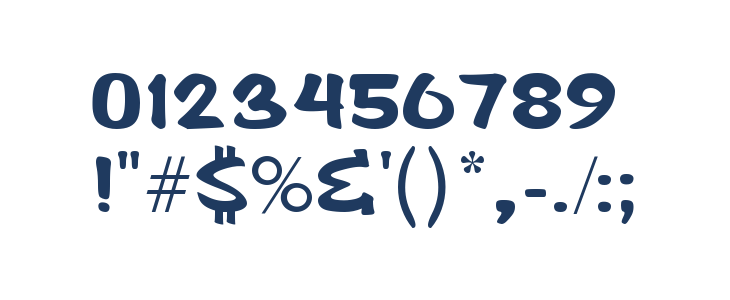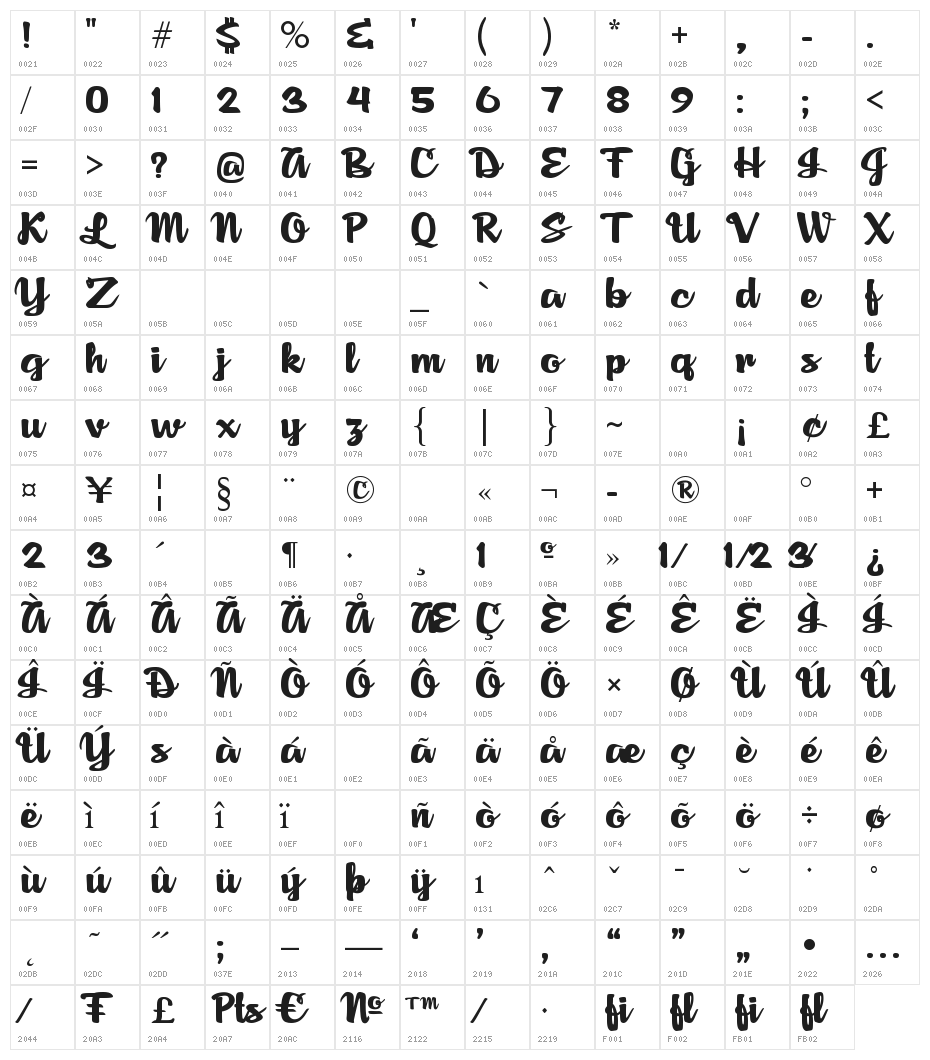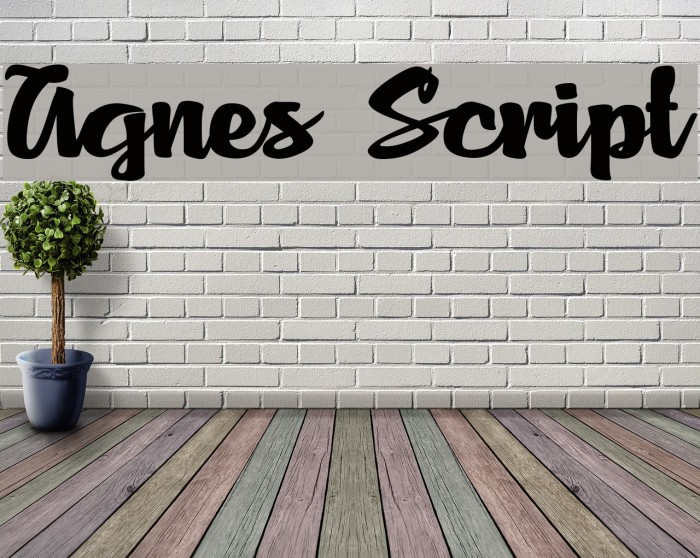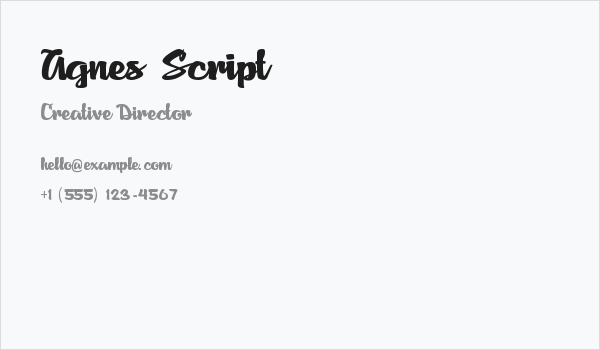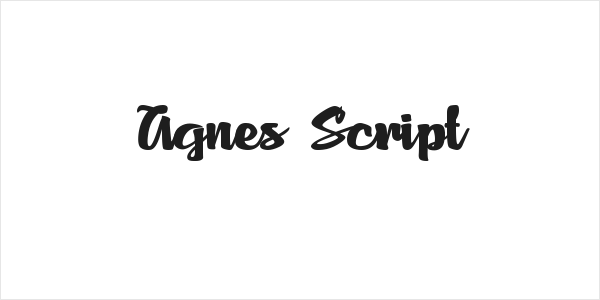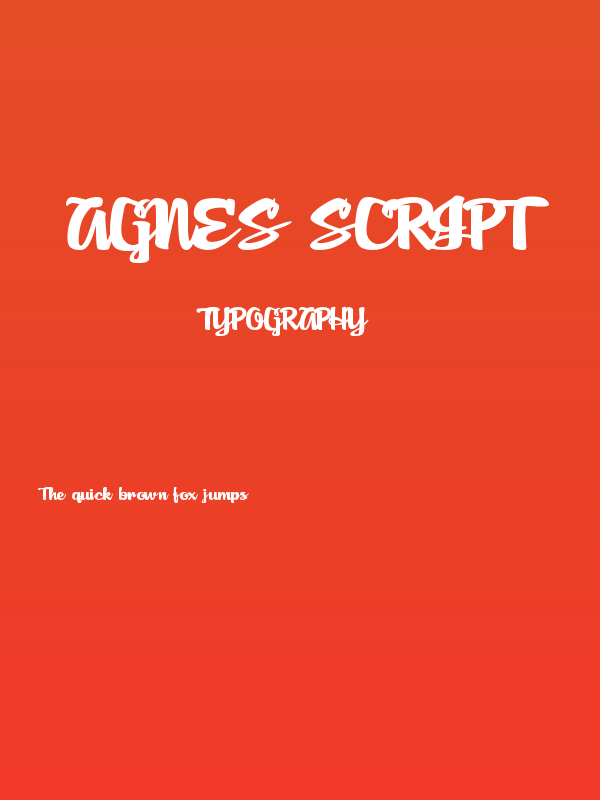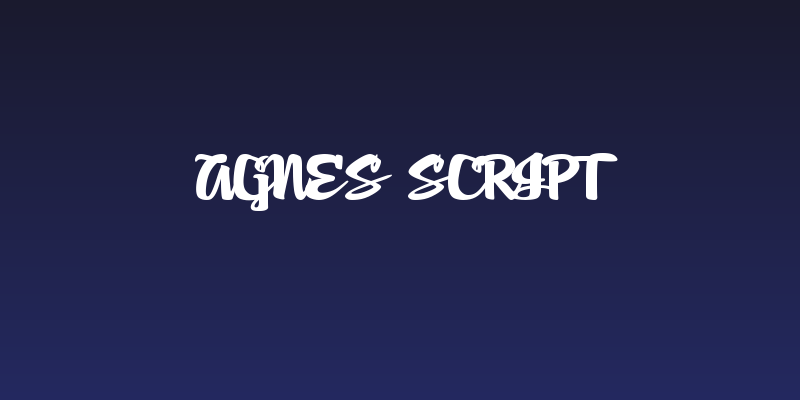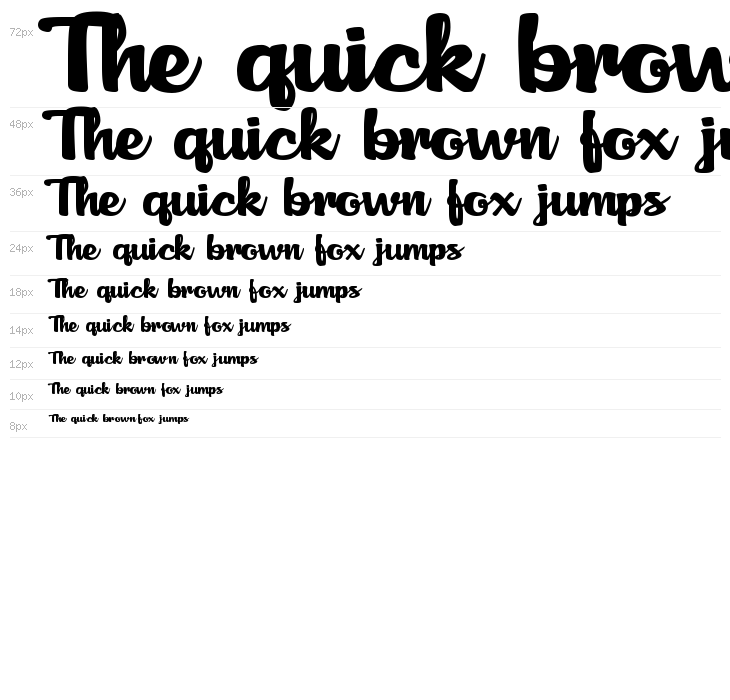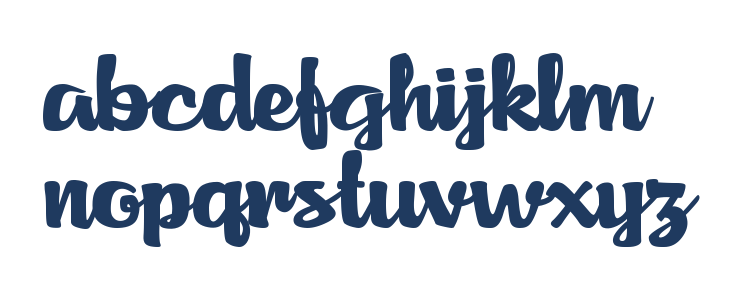
Agnes Script Font
Agnes Script Description
This font exudes a lively and dynamic character with its bold, flowing script style. The letters are interconnected, creating a sense of continuity and movement, reminiscent of traditional calligraphy. The uppercase letters are particularly expressive, with sweeping curves and loops that add a touch of elegance and flair. The lowercase letters maintain a consistent flow, enhancing readability while preserving the font's artistic nature. The numerals and special characters are crafted with the same attention to detail, ensuring a cohesive look across all elements. This font's bold strokes and smooth transitions make it ideal for projects that require a personal, handwritten touch.
| Use Case | Logos, Headlines, Invitations |
| Proposed Projects | Ideal for wedding invitations, greeting cards, branding, and logo design. |